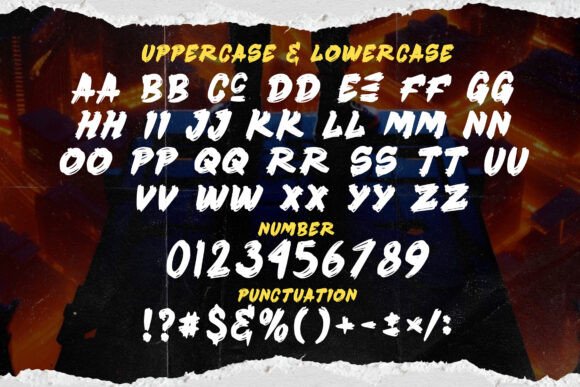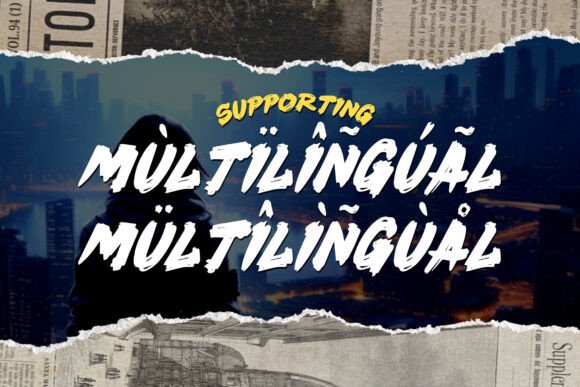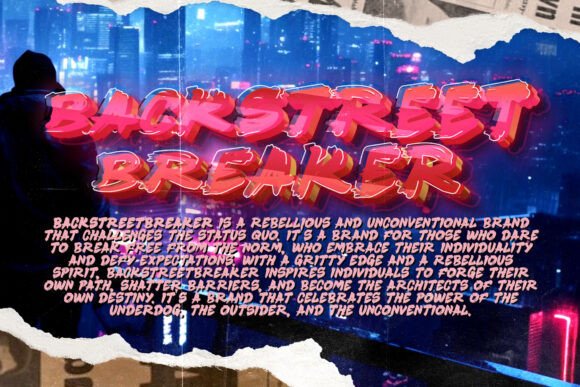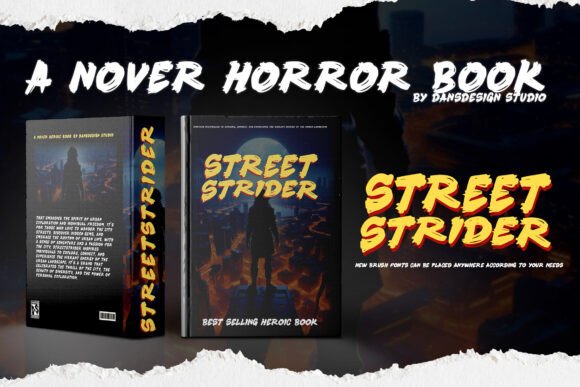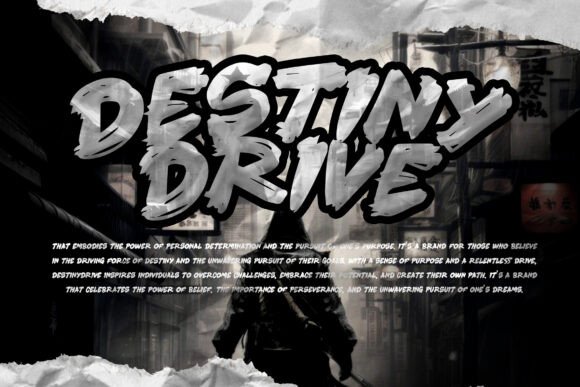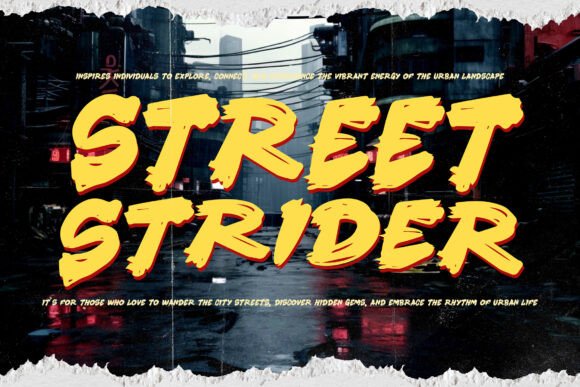
Introduction to Heroic Sentinel Font
Heroic Sentinel Graffiti Marker Y2K Display is a distinct and highly detailed marker display font.
It’s a great choice for bold retro-urban designs, business branding, logos, apparel designs, and more .
Key Features of Heroic Sentinel Font